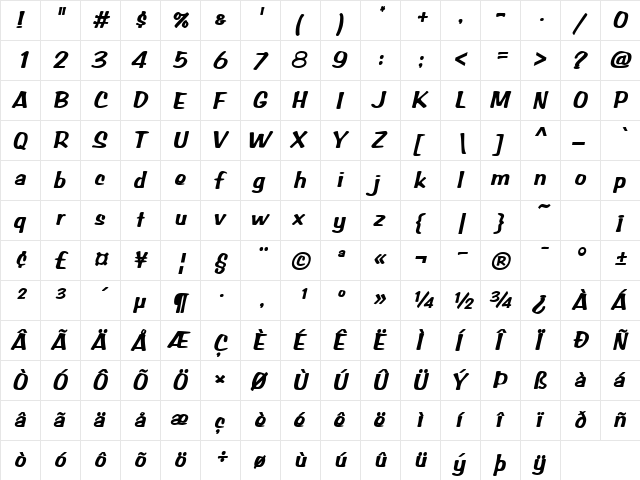
BRADDON BoldItalic
Design Context for BRADDON Typeface
BRADDON takes a measured approach to typography — its balanced proportions and neutral character make it a reliable workhorse for both digital and print work. The dynamic lean of this cut emphasises speed and emphasis in any layout. The heavy weight commands attention and anchors typographic hierarchies.
Pro Tip: Use BRADDON for emphasis, pull quotes, and subheadings where its slanted energy can add rhythm to the layout.